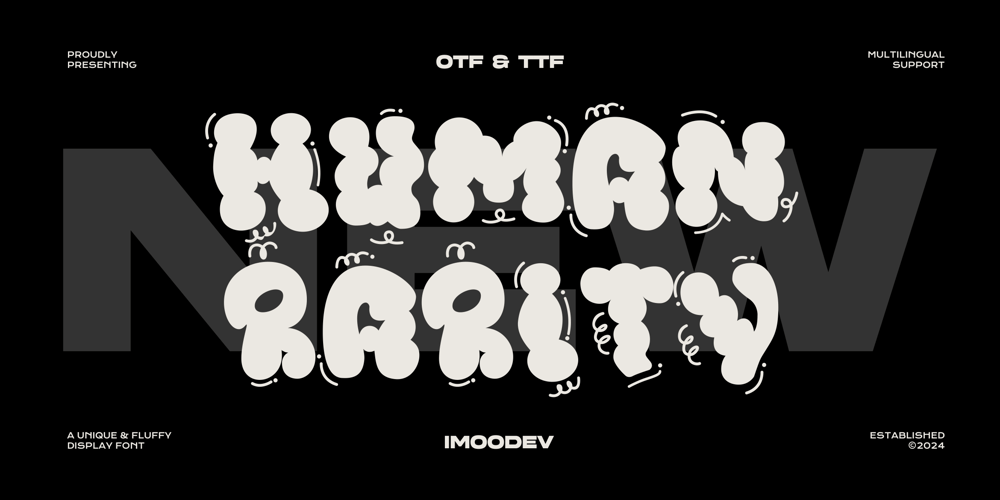
Human Rarity Font Family was designed by Aulia Savira Putri and published by Imoodev. Human Rarity contains 1 styles and family package options. Human Rarity is a cloud bubbles font, fluffy fun display typeface with a wavy form. Inspired by the transient beauty of clouds, This font combines artistic aesthetics with everyday functionality. Thought the font has distinct use cases depending on the creator, it can be best used for headings, short words and illustrative typographic projects.